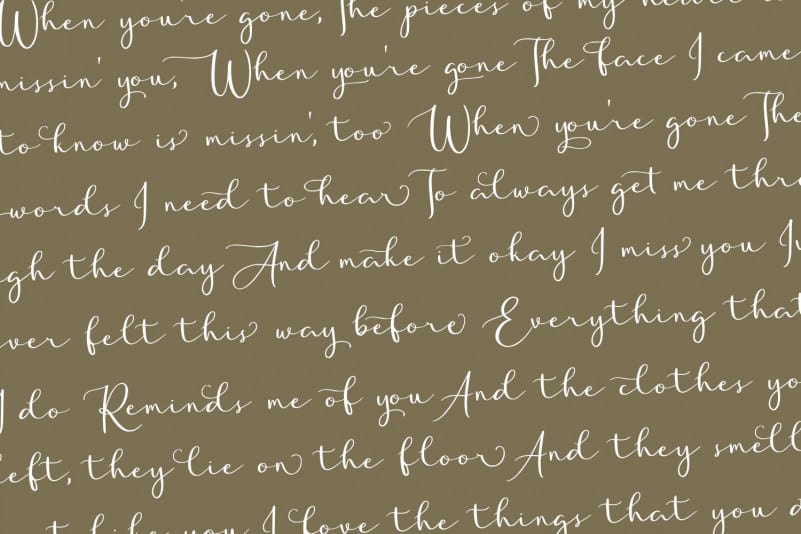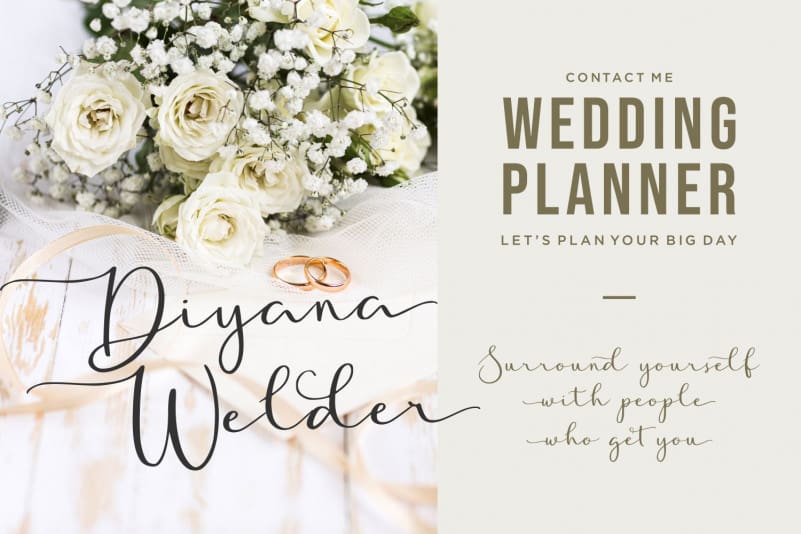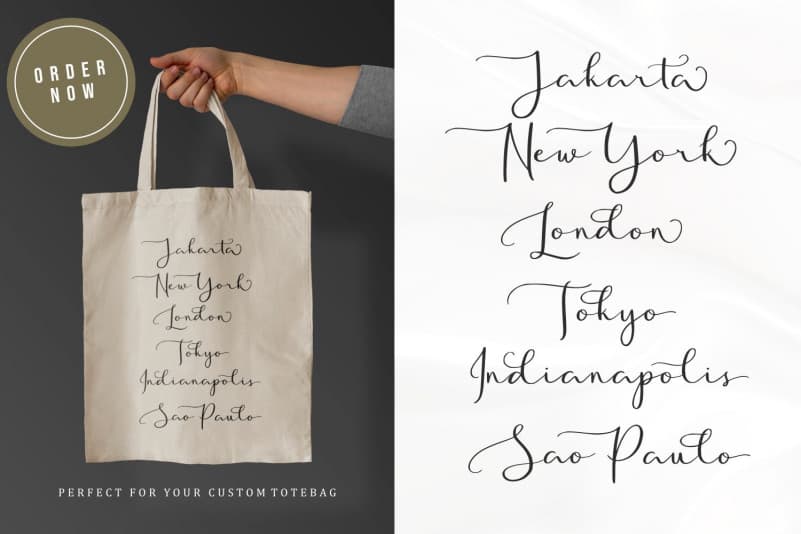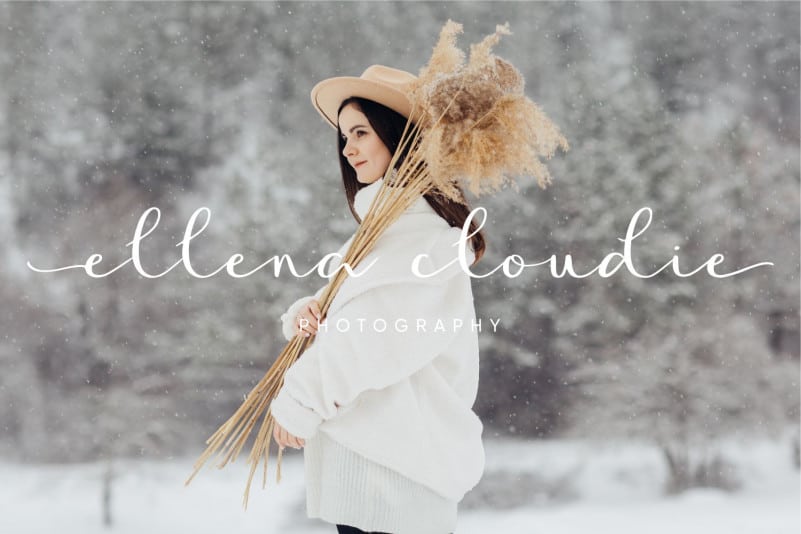
Golden Motion Font
Introducing by Allouse.Studio Proudly Present, Golden Motion Font is a Modern Handwritting Calligaraphy Font. Golden Motion is perfect for product packaging, branding project, megazine, social media, wedding, or just used to express words above the background.